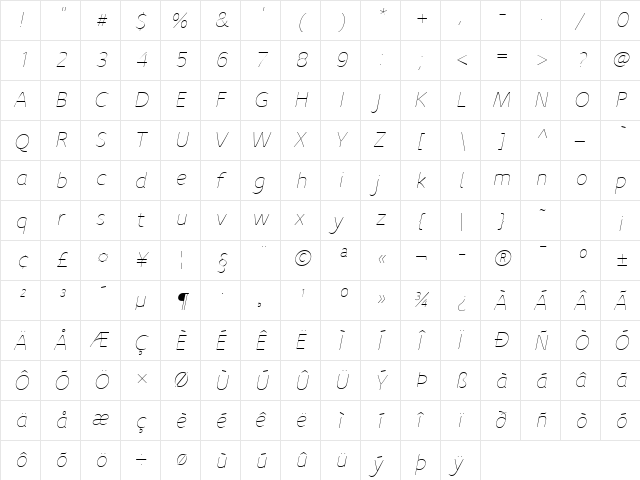
Speak-LightItalic Regular
| Foundry | FSI FontShop International GmbH |
| Designer | Jan Maack |
Design Context for Speak-LightItalic Typeface
Speak-LightItalic offers clean, dependable letterforms without strong stylistic allegiance, making it a practical choice for designers who need flexibility. The slanted form adds forward momentum and visual energy. The delicate stroke weight brings airiness and refinement to layouts.
Pro Tip: Use Speak-LightItalic for emphasis, pull quotes, and subheadings where its slanted energy can add rhythm to the layout.